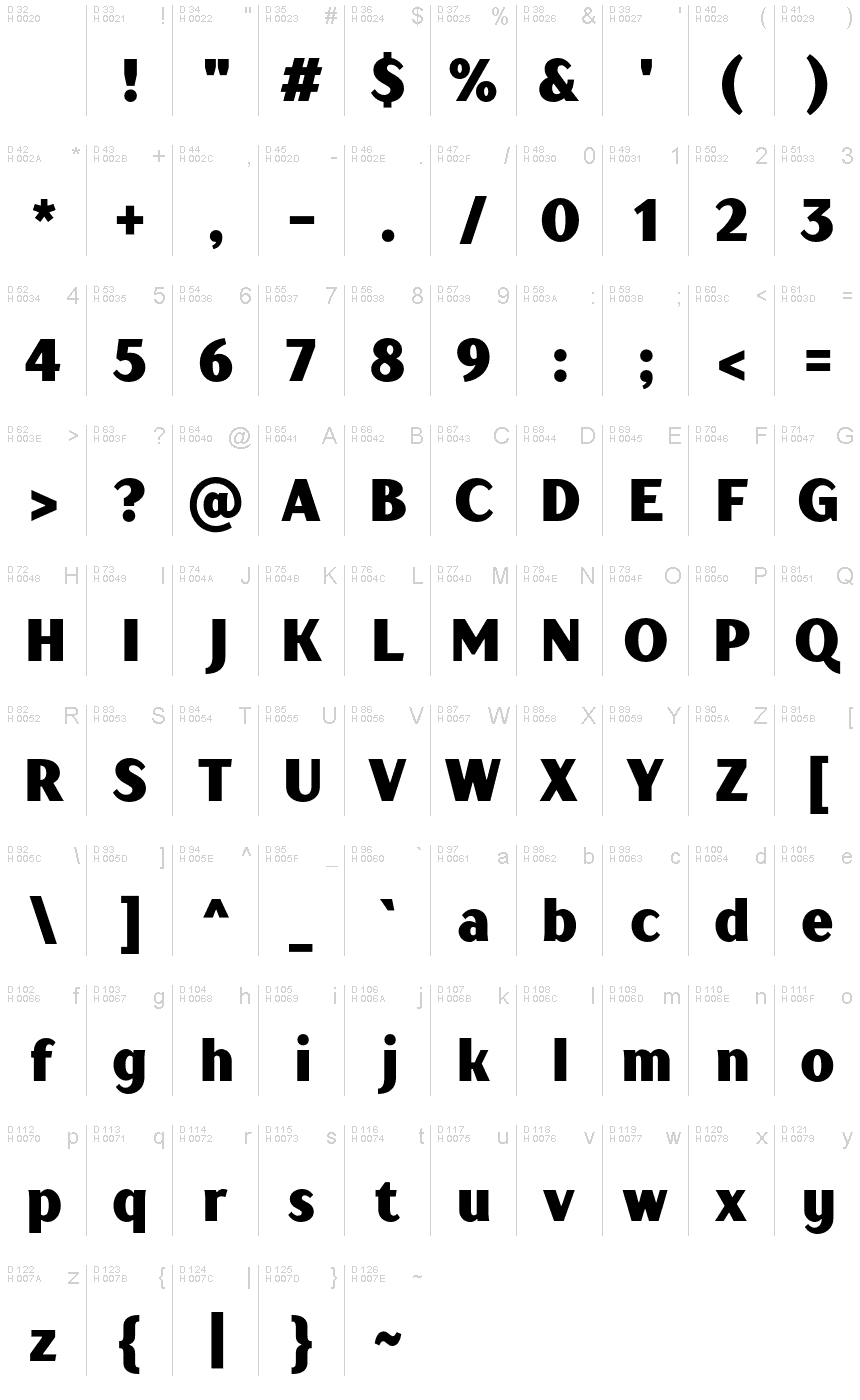
TT Drugs Trl Cnd Black
TT Drugs Cnd Black is a top-of-the-line sans serif font designed by TypeType Foundry. This extra-bold font is perfect for projects that require a bold and modern touch, such as branding, advertising, and packaging design. Its condensed style makes it great for headlines and titles while still maintaining legibility. Use TT Drugs Cnd Black to make your designs stand out with its sharp edges and sleek look. Whether you're creating a website or print material, this font will add an edge to your work that will catch the eye of any viewer.